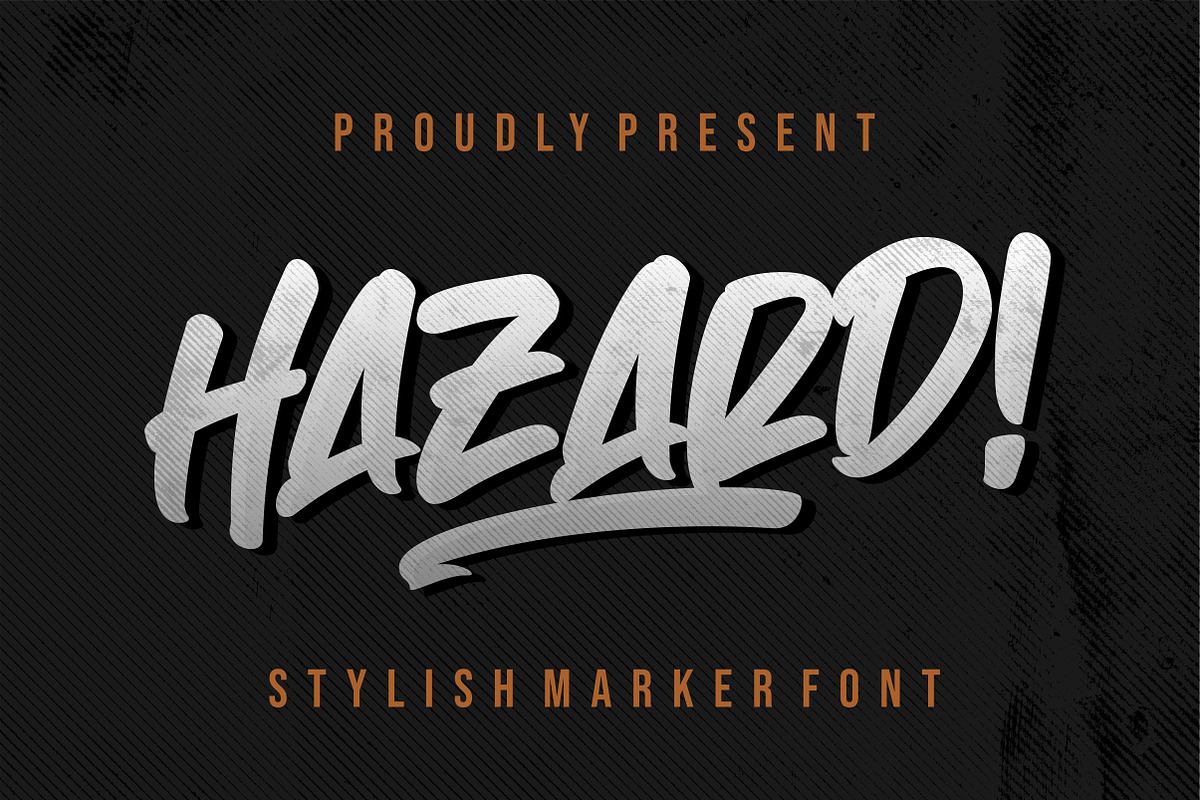
Please note, to use this font for commercial purposes, you must purchase the full version. Hazard! is a bold and dynamic marker font that brings a street-inspired, edgy feel to your designs. With its strong brush strokes and modern flair, this font is perfect for creating striking logos, posters, event invitations, and more. Whether you're designing for a creative campaign, an urban brand, or a trendy event, Hazard! adds a unique and stylish touch to your work. Test it out and enjoy free download access for personal use. Experience the bold, artistic style of Hazard! Stylish Marker Font Free Download before purchasing the commercial license. Add a bold, street-style flair to your designs with Hazard!